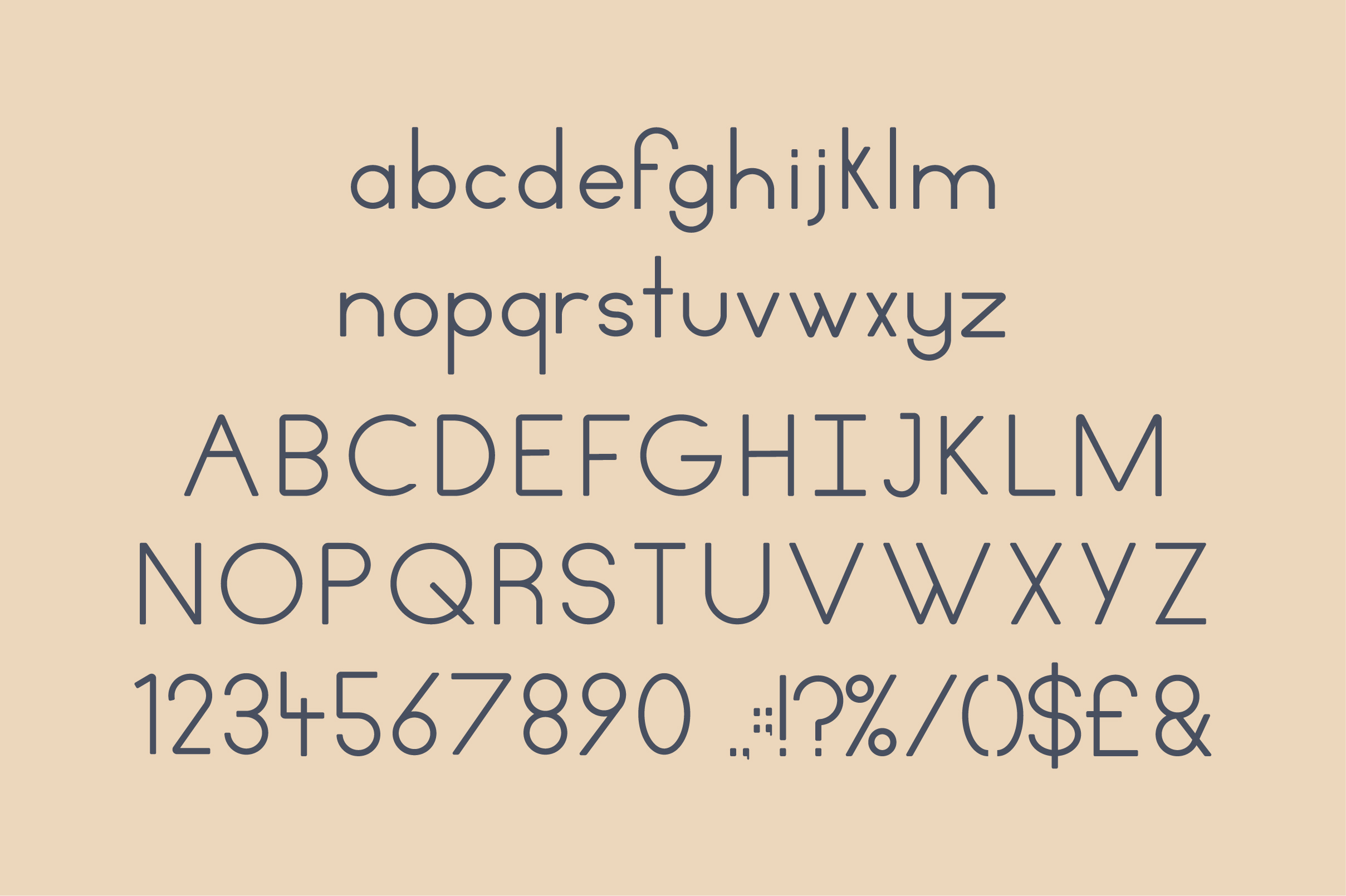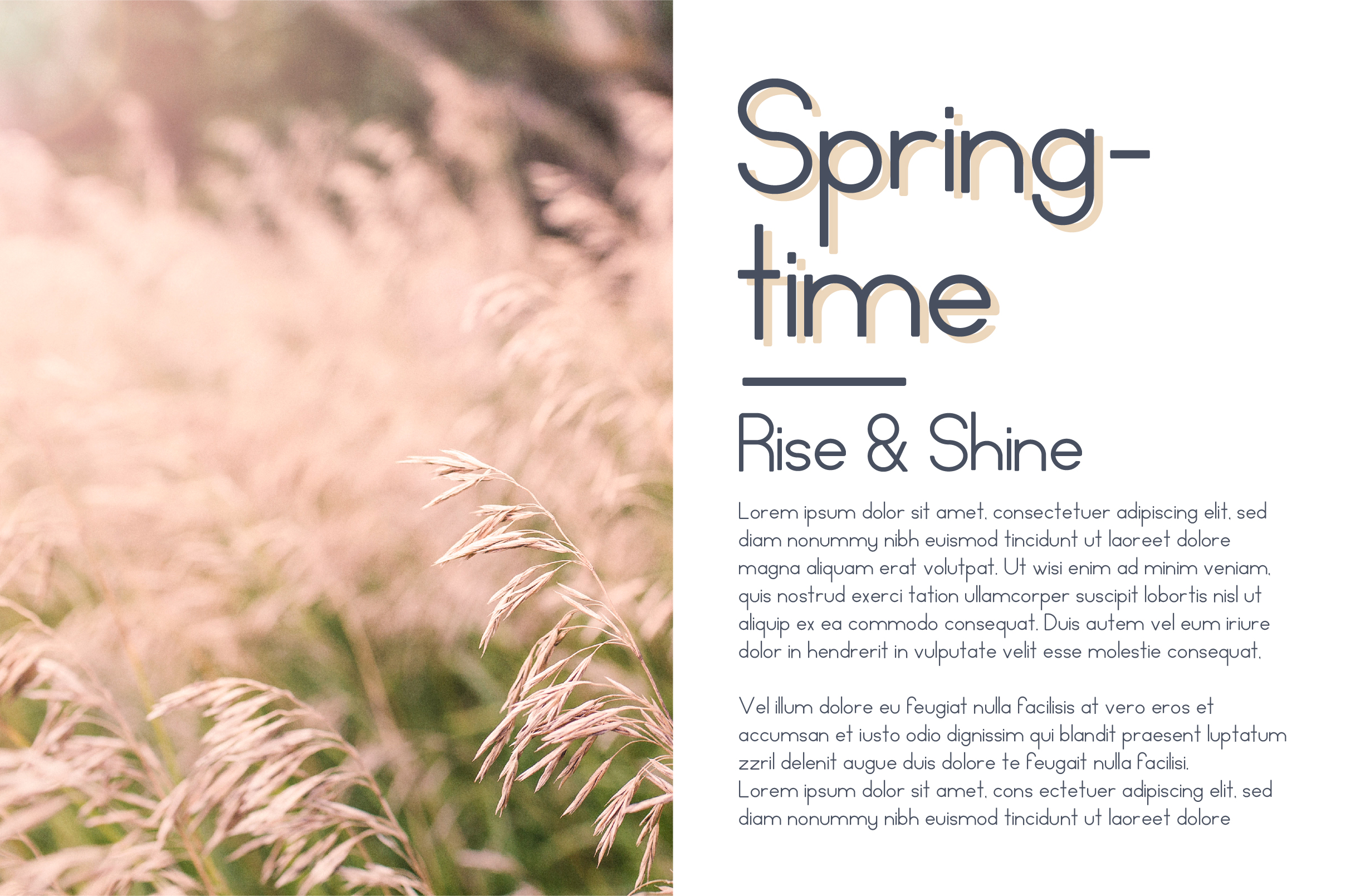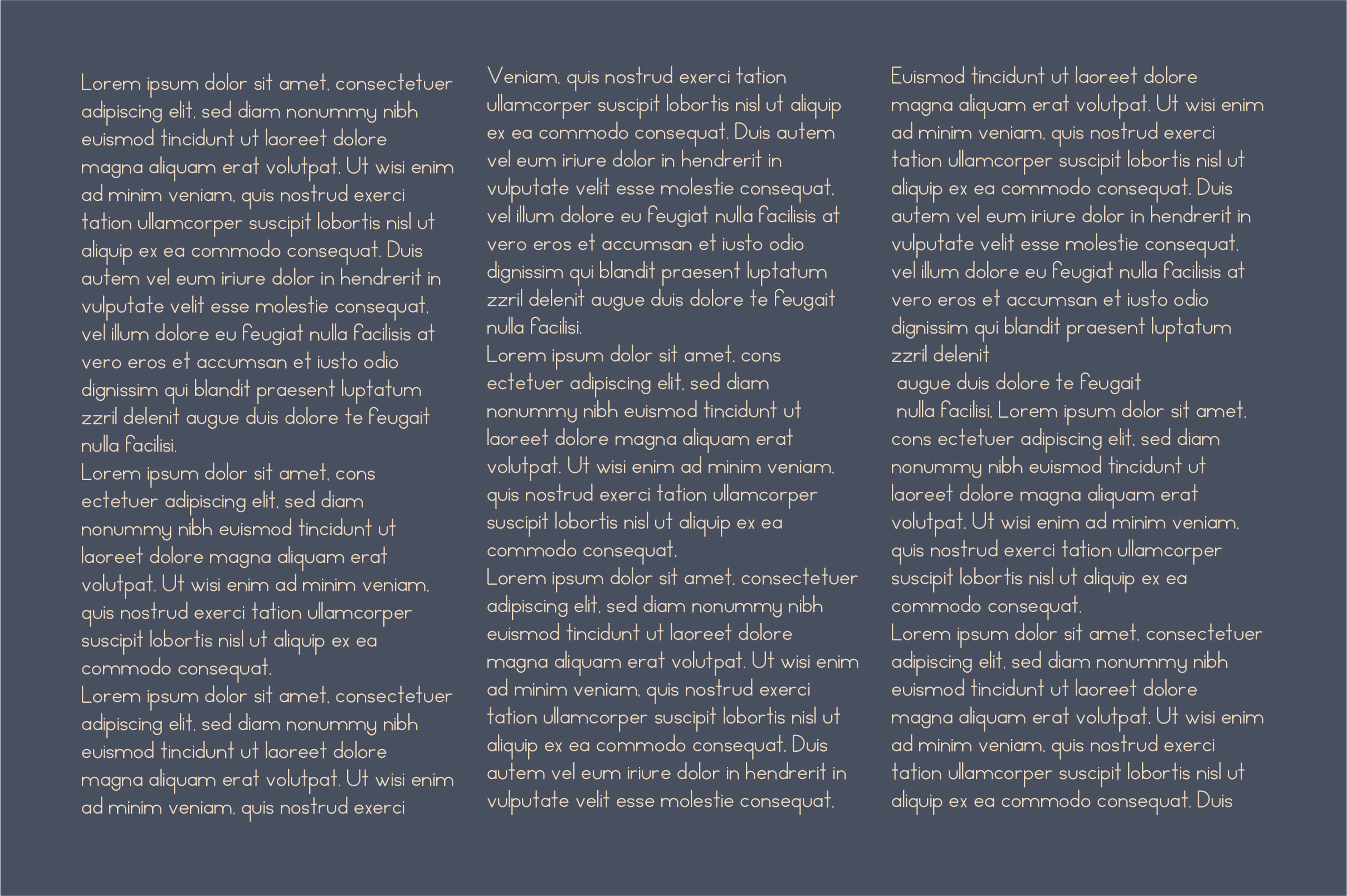
Daze Font: The Perfect Quaint and Laid-Back Typeface for Simplistic Packaging and Branding Design
In the world of typography, fonts play a crucial role in conveying the tone and personality of a brand. For designers and crafters looking for a typeface that exudes a sense of simplicity and laid-back charm, the Daze Font is an excellent choice. This quaint and stylish font is perfect for creating eye-catching packaging and branding designs that stand out from the crowd.
What is Daze Font?
Daze Font is a carefully crafted typeface that embodies a carefree and relaxed vibe. Its unique letterforms are designed to evoke a sense of nostalgia and playfulness, making it an ideal choice for brands that want to convey a friendly and approachable image. The font’s simplicity and elegance make it versatile enough to be used in various design applications, from packaging and branding to digital media and print materials.
Characteristics of Daze Font
The Daze Font boasts several characteristics that make it an attractive choice for designers and crafters. Some of its notable features include:
- Quaint and Laid-Back Design: The font’s letterforms have a charming, hand-crafted feel that gives them a unique and endearing quality.
- Simplistic yet Elegant: The font’s simplicity makes it easy to read and understand, while its elegant lines and curves add a touch of sophistication.
- Versatile: The Daze Font can be used in a wide range of design applications, from packaging and branding to digital media and print materials.
- Easy to Read: The font’s clear and legible letterforms make it easy to read, even at small sizes.
Uses of Daze Font
The Daze Font is a versatile typeface that can be used in various design applications. Some of the most popular uses of this font include:
- Packaging Design: The font’s quaint and laid-back design makes it perfect for creating eye-catching packaging designs that stand out on store shelves.
- Branding Design: The font’s elegant and sophisticated lines make it an excellent choice for creating logos and branding materials that convey a sense of professionalism and style.
- Digital Media: The font’s clear and legible letterforms make it easy to read on digital devices, making it a great choice for use in digital media, such as websites and social media graphics.
- Print Materials: The font’s simplicity and elegance make it suitable for use in print materials, such as brochures, flyers, and posters.
Why Choose Daze Font?
There are many fonts available that can be used for packaging and branding design, but the Daze Font stands out from the crowd. Here are some reasons why you should choose the Daze Font for your next design project:
- Unique and Eye-Catching: The font’s quaint and laid-back design makes it unique and eye-catching, ensuring that your design stands out from the competition.
- Easy to Read: The font’s clear and legible letterforms make it easy to read, even at small sizes.
- Versatile: The font’s simplicity and elegance make it versatile enough to be used in various design applications.
- High-Quality: The font is carefully crafted to ensure that it is of high quality and suitable for use in professional design projects.
In conclusion, the Daze Font is a quaint and laid-back typeface that is perfect for simplistic packaging and branding design. Its unique letterforms, simplicity, and elegance make it an attractive choice for designers and crafters looking for a font that conveys a sense of friendliness and approachability. With its versatility, ease of readability, and high-quality design, the Daze Font is an excellent choice for any design project.